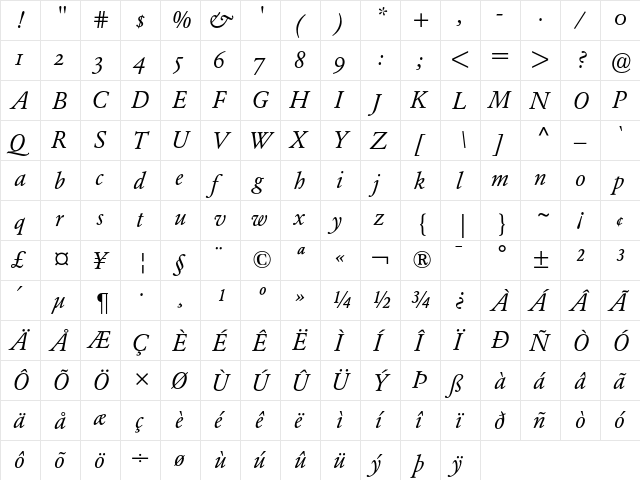
Garamond BE Italic Oldstyle Figures Font Preview
Garamond BE Italic Oldstyle Figures
Design Context for Garamond BE Typeface
Garamond BE brings classic typographic sensibility to the table — its serifs and measured letterforms reflect centuries of print heritage. The dynamic lean of this cut emphasises speed and emphasis in any layout.
Pro Tip: Set Garamond BE with slightly loose tracking in headlines to let each letterform's detail read clearly at display sizes.